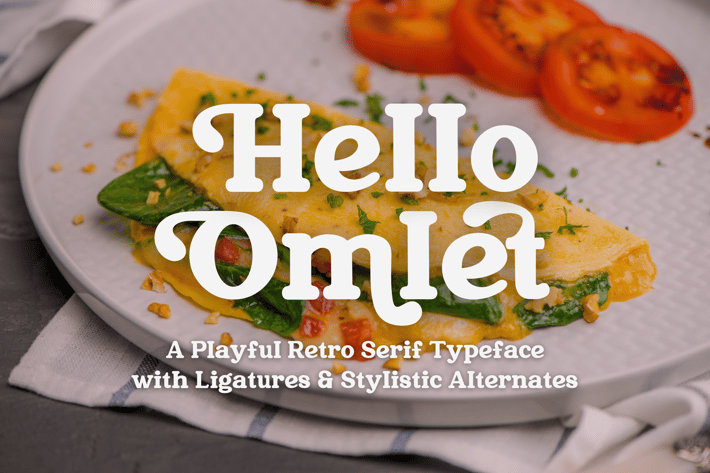
Hello Omlet | Retro Serif Typeface
Description
Hello Omlet is a special modern style font. Made with accurate accuracy with beautiful curves. With alternative characters and ligatures that make your work very special. It is perfect for branding design, logos, greeting cards, title packaging. and other designs. Immediately use our fonts to make your work even more amazing.